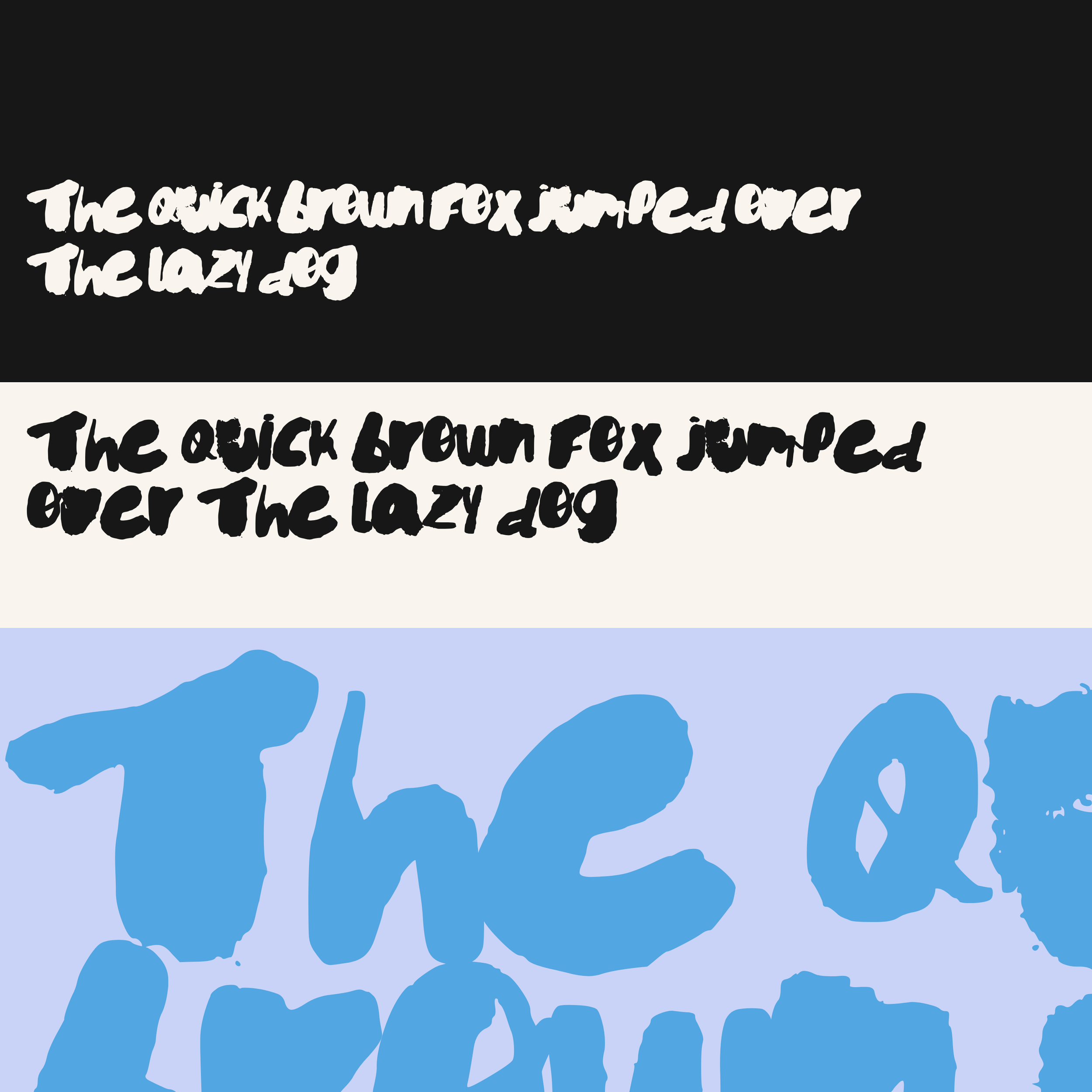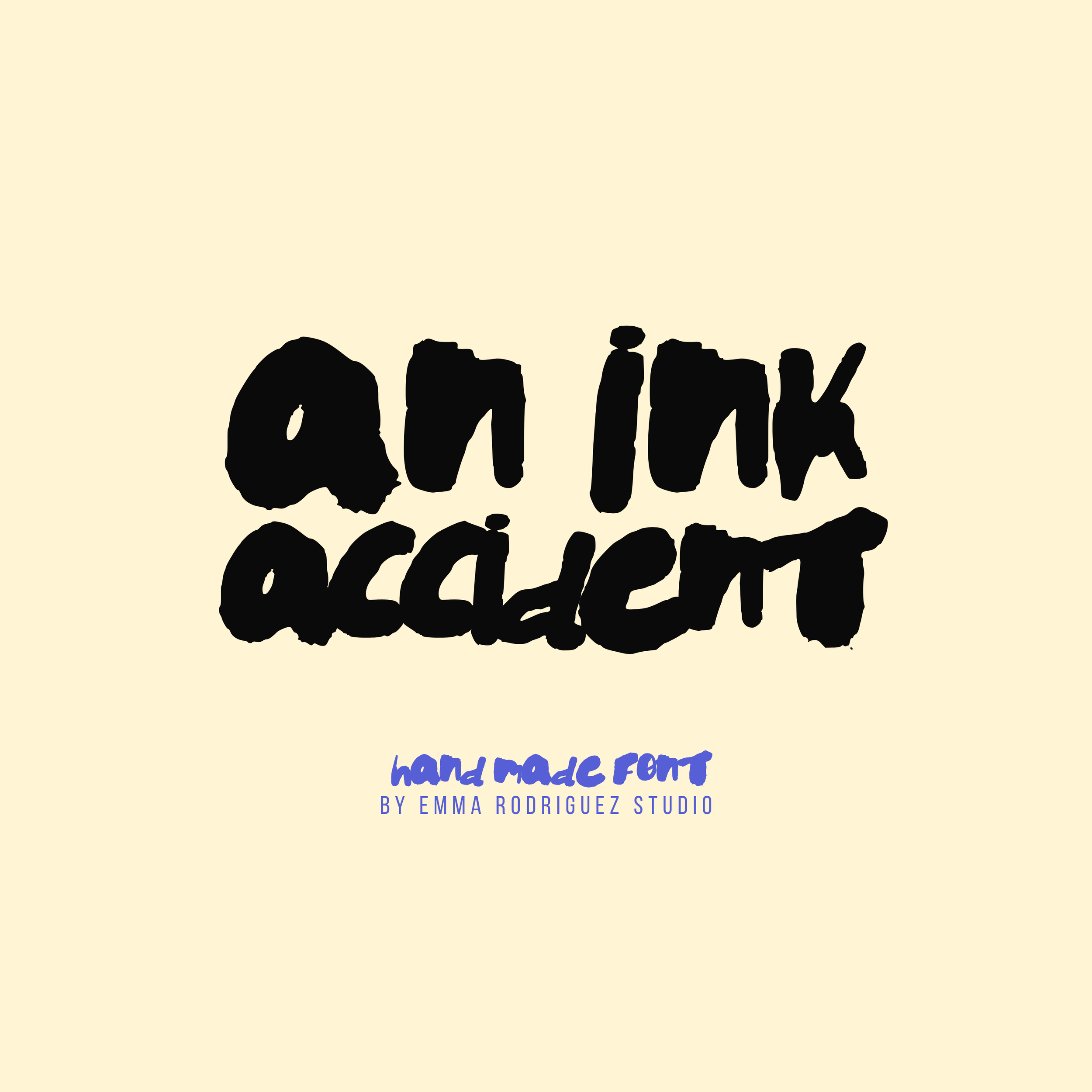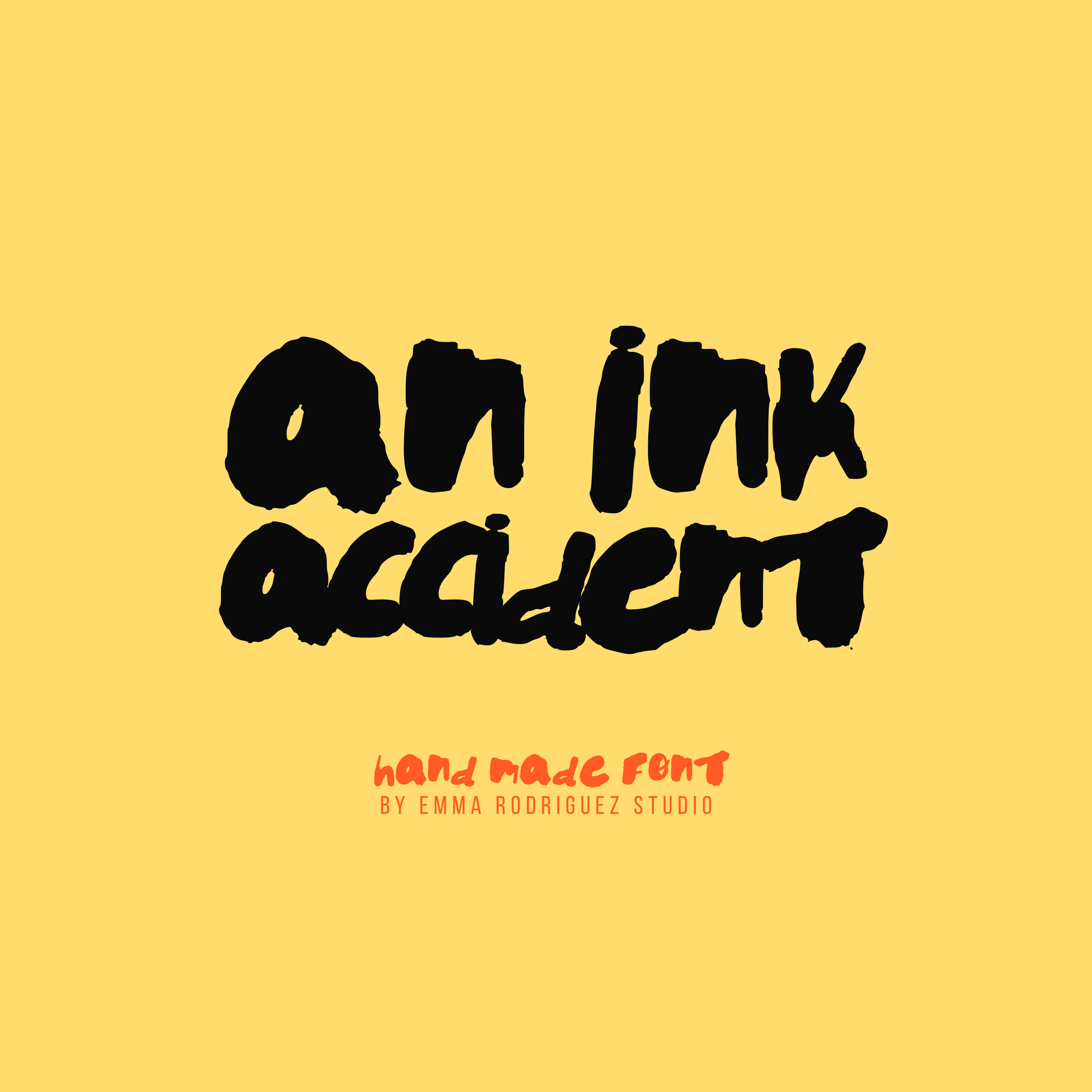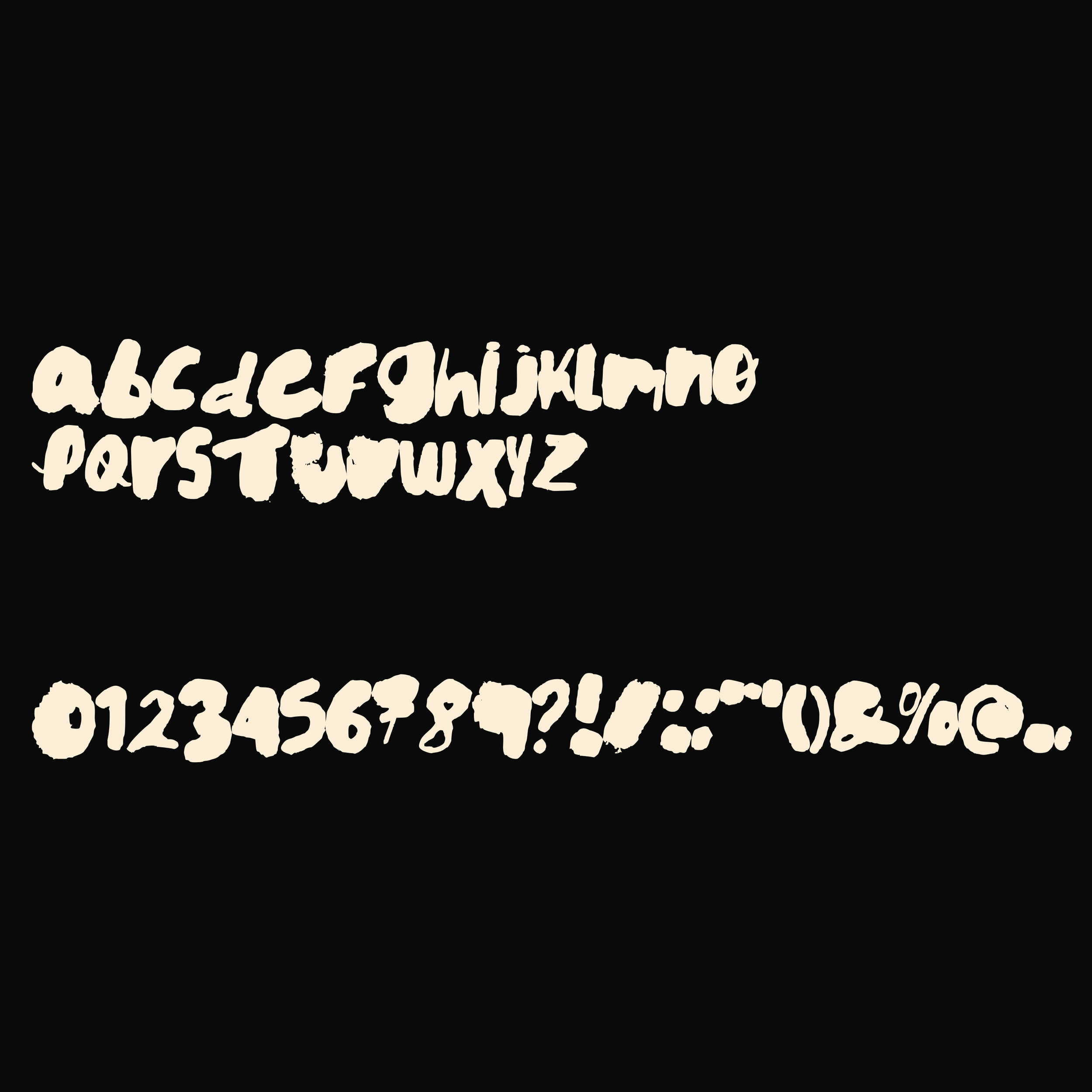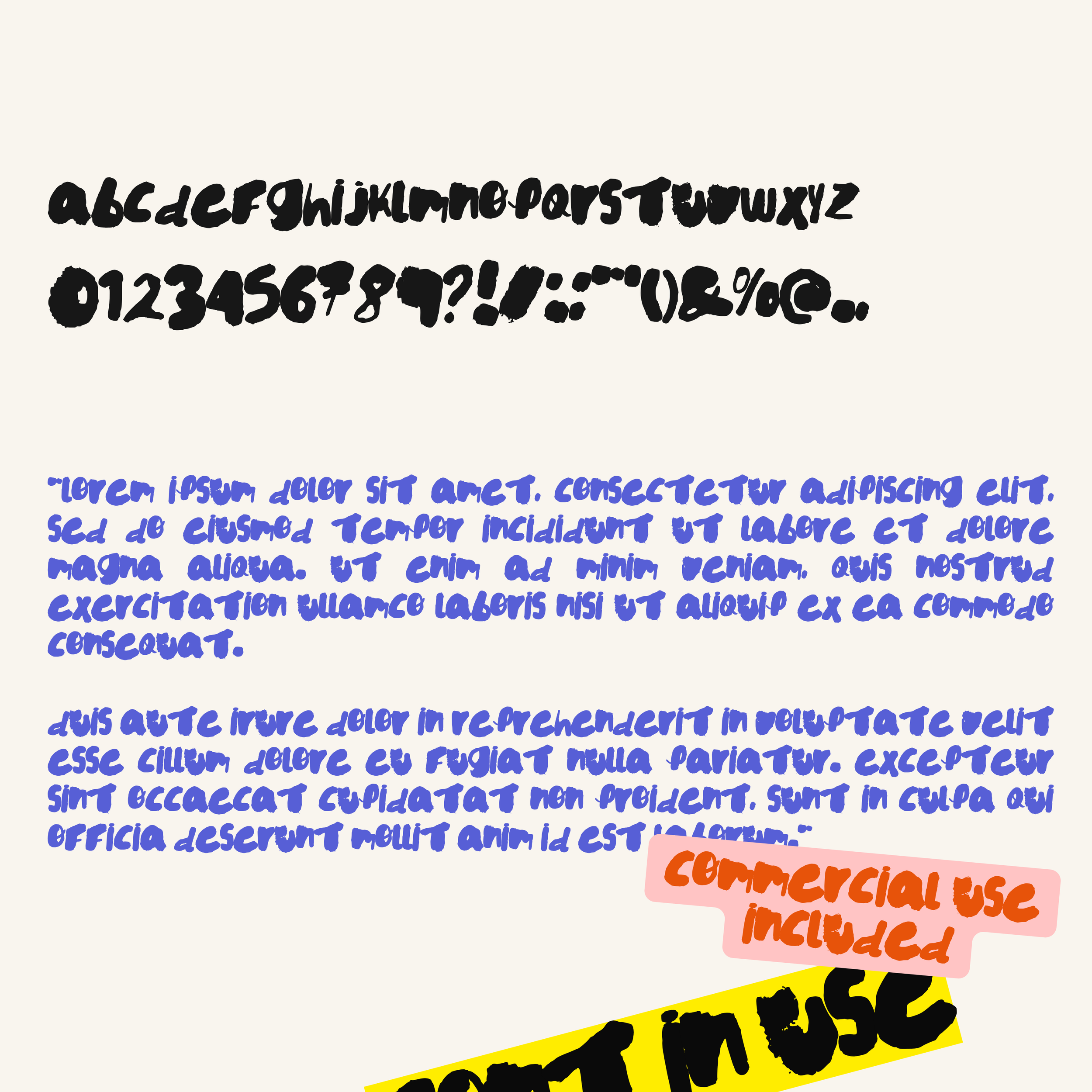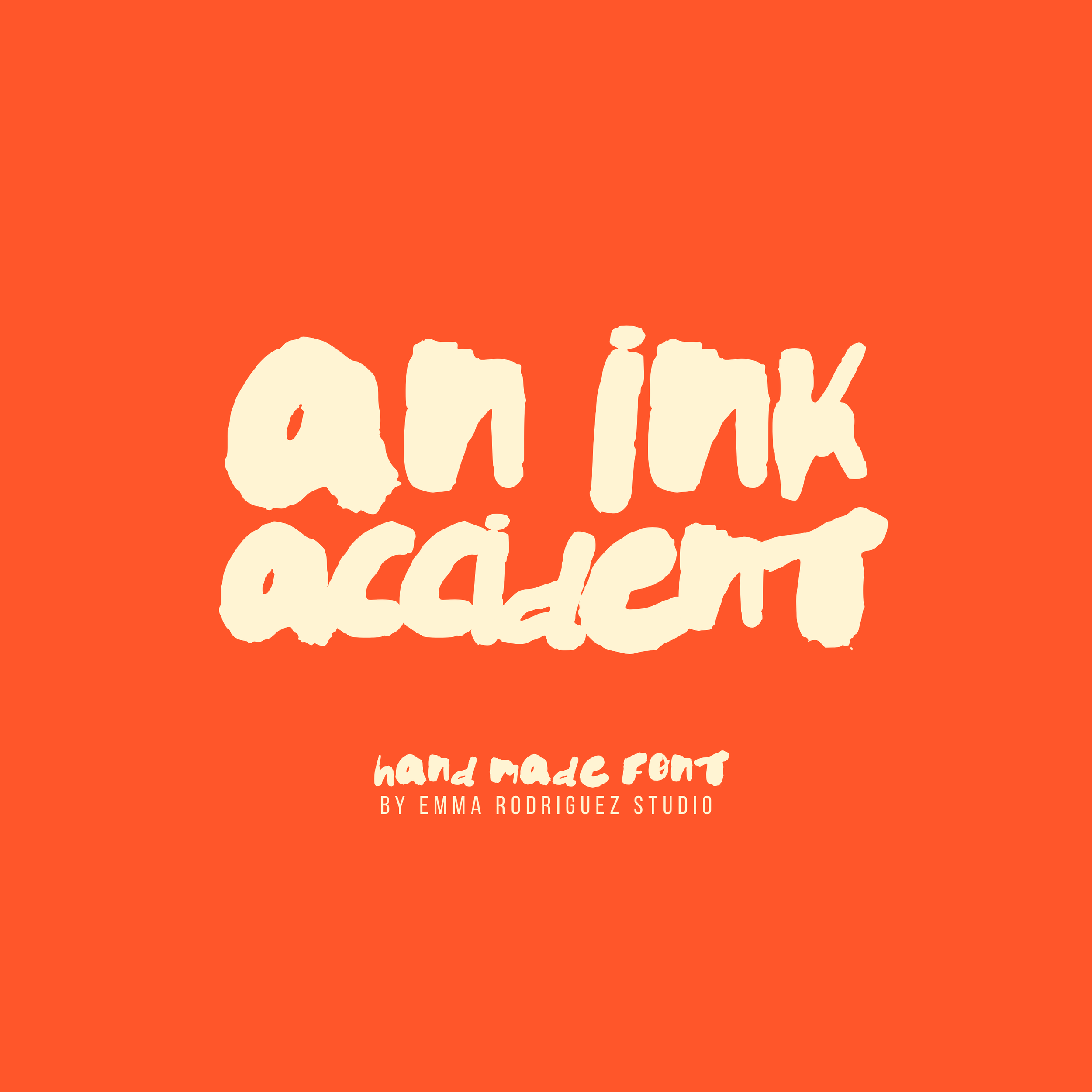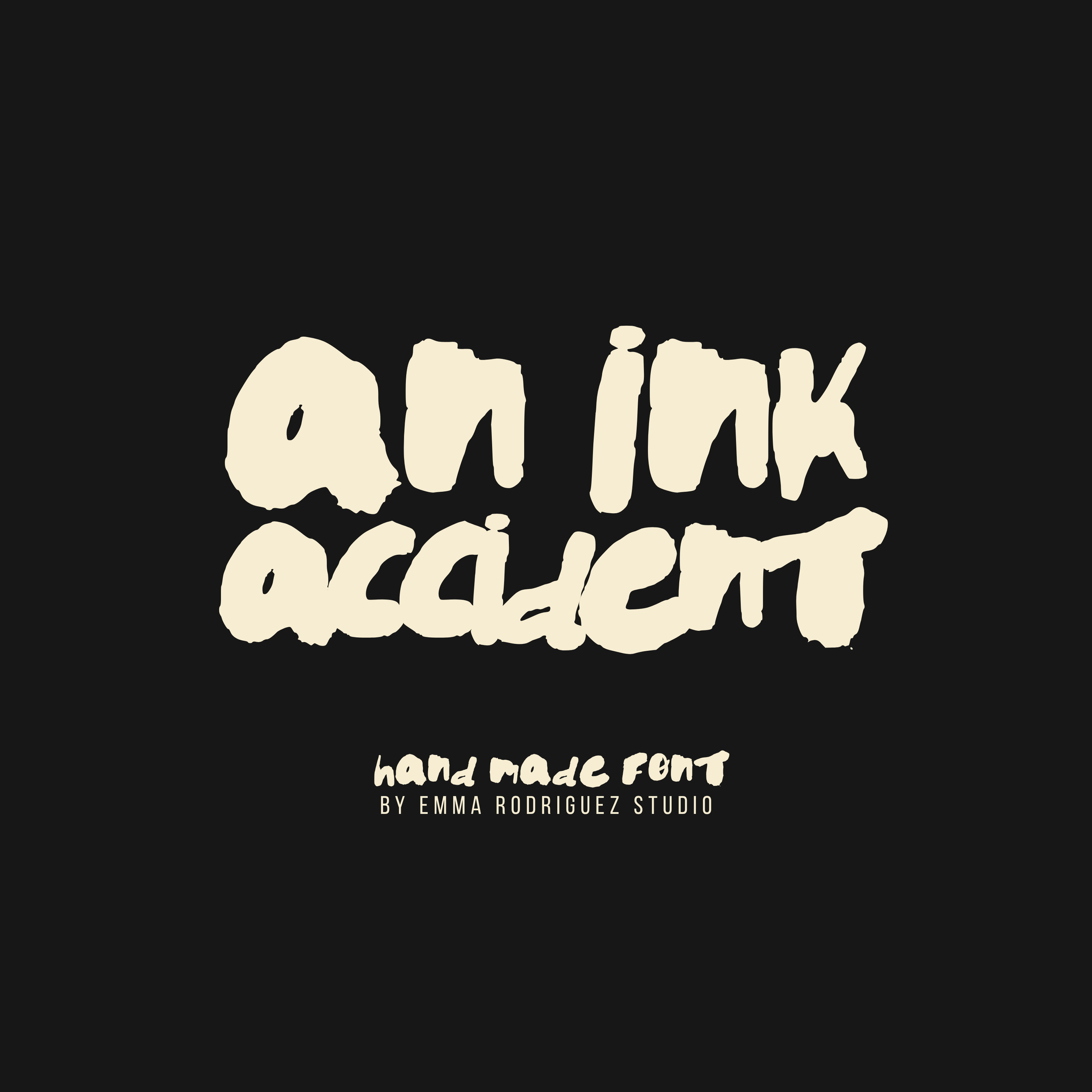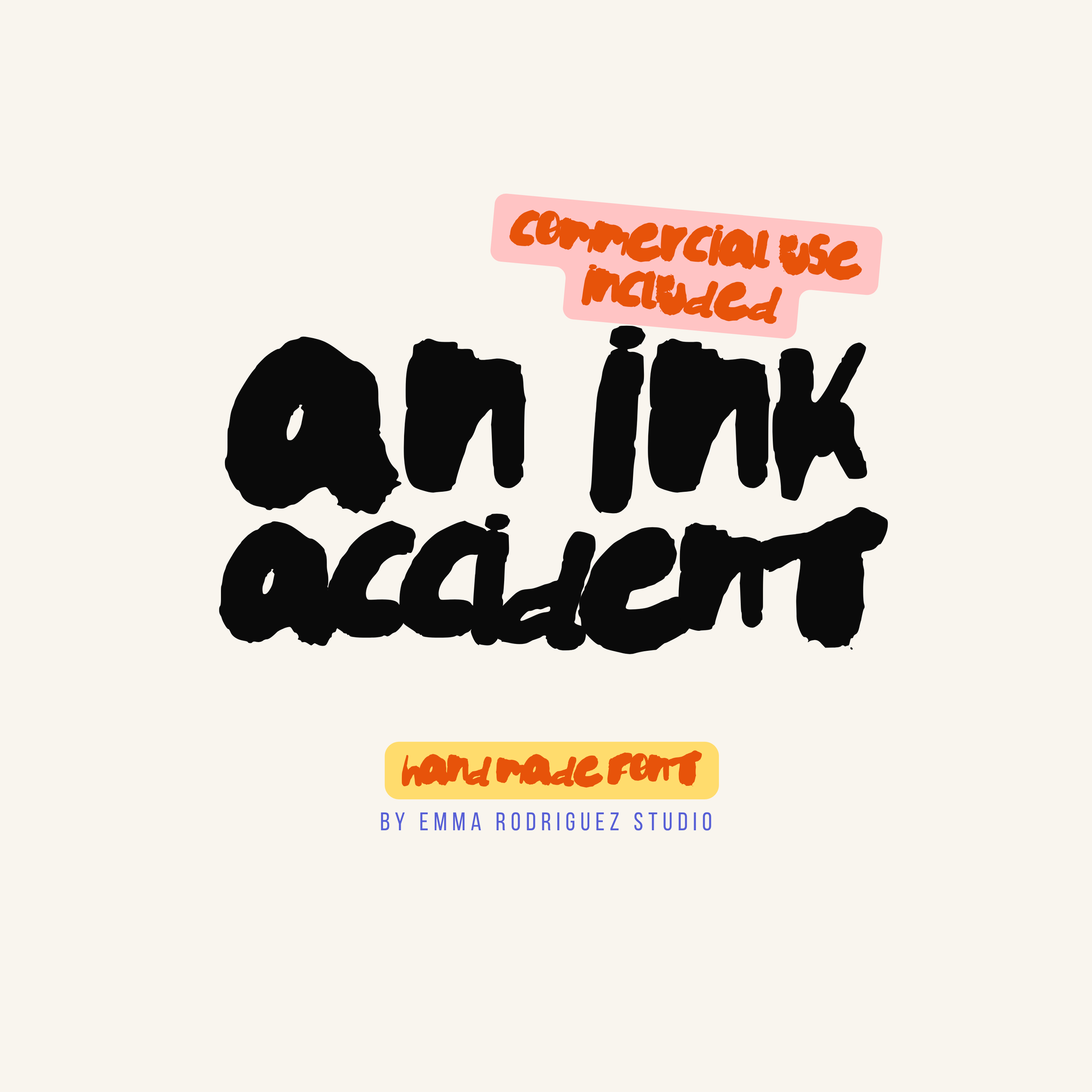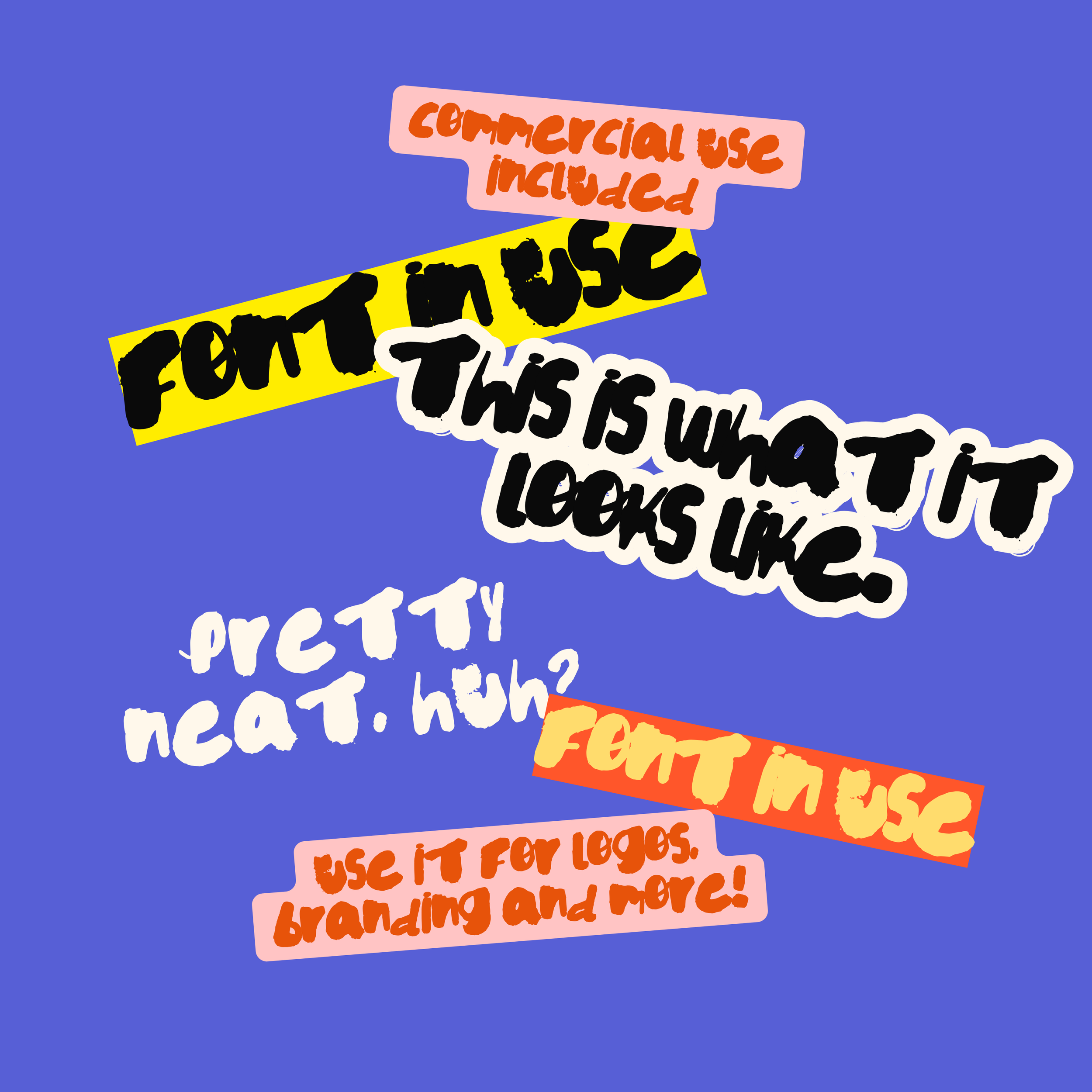
An Ink Accident Font - Blotchy Messy Type
An Ink Accident is a messy handwritten font built from chunky ink-like strokes, uneven shapes and deliberately rough edges. It has the spontaneous quality of hand painted lettering, with irregular forms and imperfect spacing left intact rather than digitally polished away.
This is a lowercase-only font, designed for graphic designers, illustrators, artists, poster makers, branding designers, small businesses and Etsy sellers looking for typography that feels expressive, tactile and genuinely handmade.
Perfect for:
• Posters and art prints
• Branding and logos
• Packaging design
• Editorial layouts
• Album artwork
• Merchandise and apparel
• Social media graphics
• Labels and stickers
• Creative campaigns
Please note that An Ink Accident is intentionally rough, irregular and handmade. Letterforms, spacing, proportions, alignment and overall form may vary throughout the character set. Uneven ink shapes and imperfect flow are deliberate features rather than errors, and some manual kerning or letter placement may be useful depending on your layout.